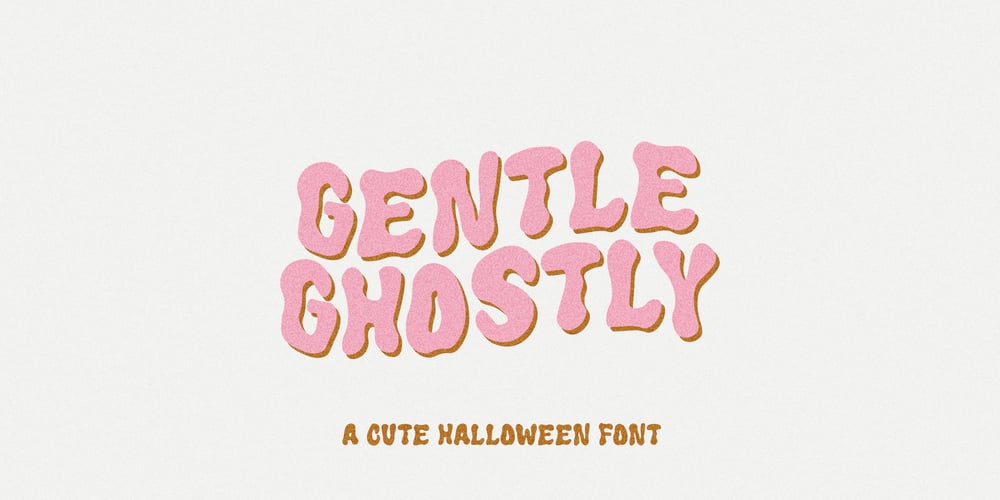
Gentle Ghostly Font Family was designed by Dmitrii Chirkov and published by Supfonts. Gentle Ghostly contains 1 styles and family package options. Gentle Ghostly will be perfect for halloween lettering, beautiful frame for your home, book covers, greeting cards, logos, marketing, magazines or anything that requires cute handwritten lettering :)What’s inside:- Gentle Ghostly Script- Multilingual support- Cricut support